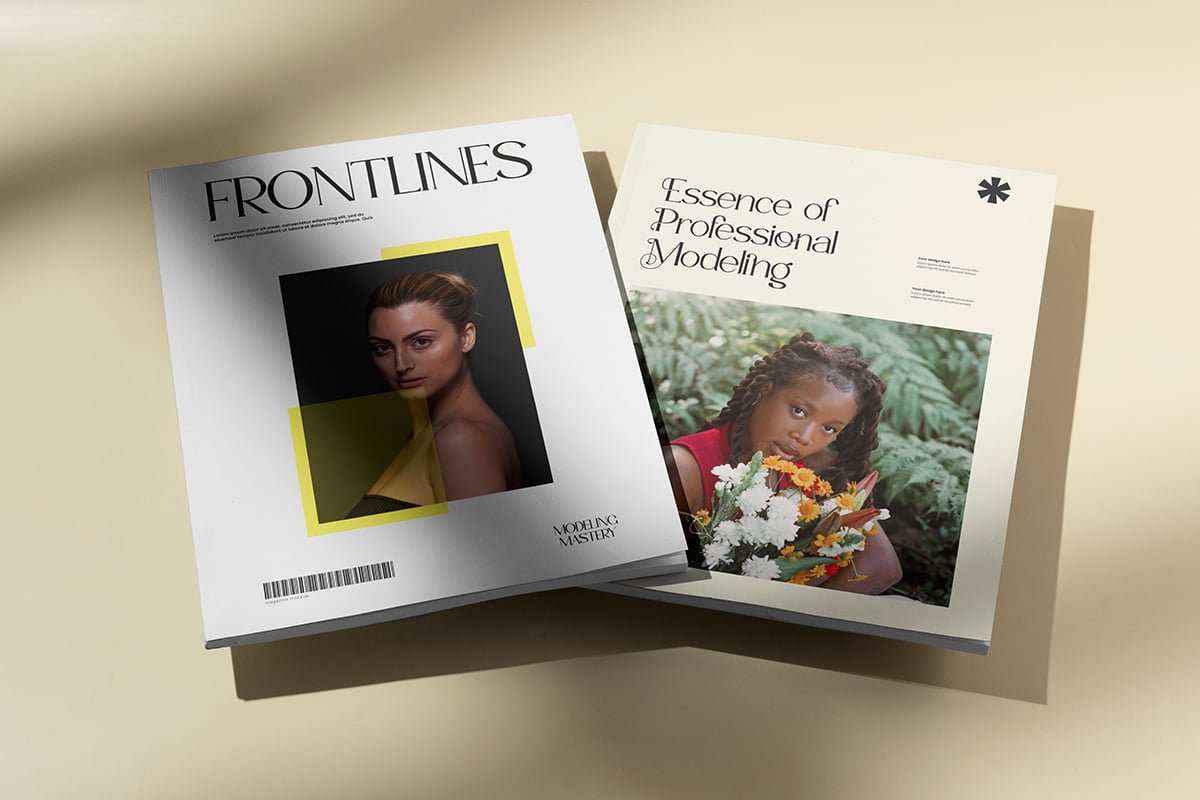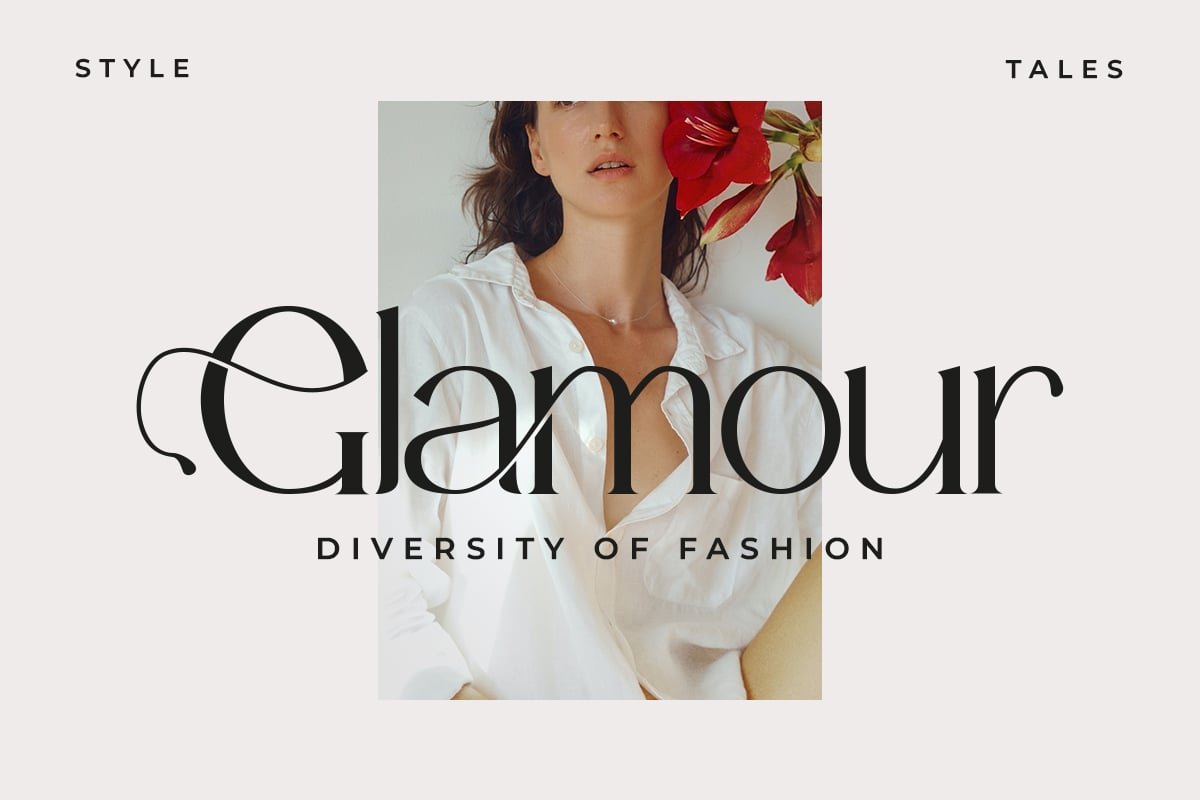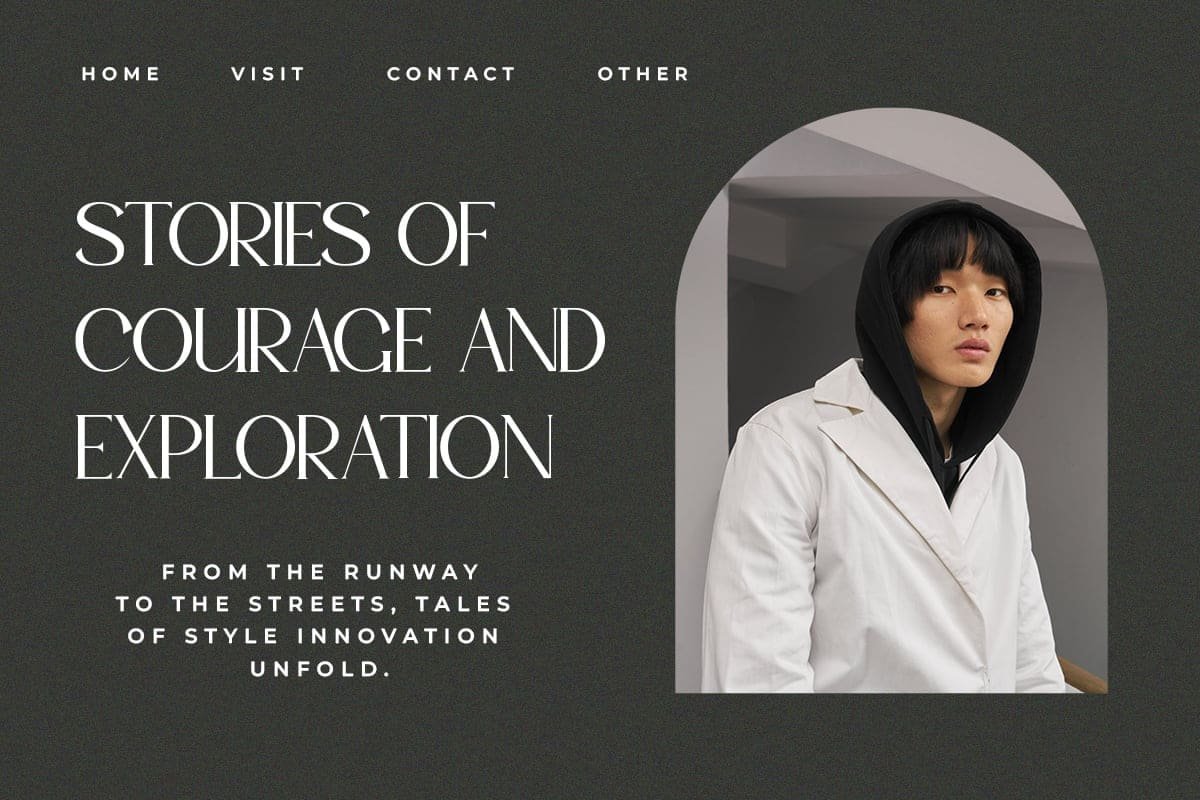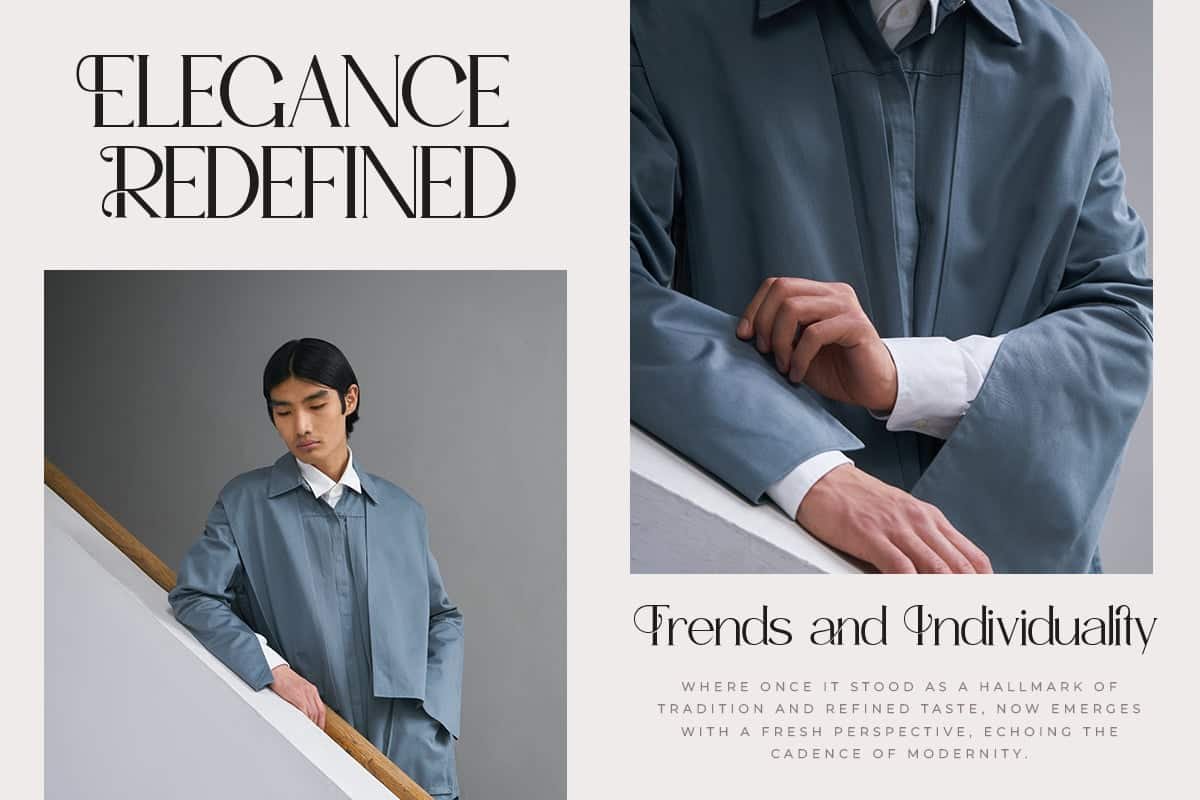
Timeless Modern Serif Font
Timeless Modern Serif Font is a luxury modern serif typeface crafted with elegant curves, artistic terminals, and refined high-contrast strokes. Its fashion-forward aesthetic and sophisticated detailing make it perfect for editorial layouts, beauty branding, magazine titles, and premium visual identities. The graceful form and modern proportions create a polished, expressive look that elevates any design. Delivered in OTF, TTF, and WOFF formats with complete uppercase, lowercase, numerals, punctuation, and symbols.
Relevance and Use Cases is perfect for fashion branding, magazine covers, editorial spreads, beauty and lifestyle campaigns, premium packaging, luxury advertising, artistic display titles, and refined creative projects requiring an elegant serif look. Suitable for luxury branding, fashion editorials, magazine titles, social media campaigns, beauty product design, wedding stationery, premium packaging, modern advertising layouts, and artistic high-end visual storytelling.